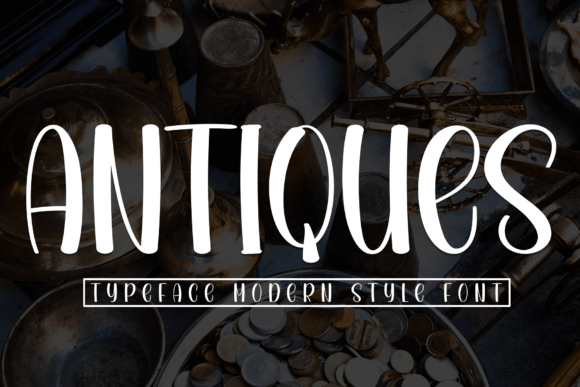
Feast your eyes on Antiques Script, where whimsy and playfulness intertwine to create a font that brings joy to your design endeavors. This enchanting script, crafted with meticulous care by the skilled hands of Strongkeng Old, captivates your senses with its irresistibly sweet and friendly charm. As you let the strokes of Antiques Script dance across your screen, you'll be captivated by its fresh and cute demeanor, perfect for adding a splash of delight to wedding invitations, greeting cards, and any project that begs for a touch of whimsy.
With its captivating curves and enchanting swashes, Antiques Script dances across the page like a playful melody. Inspired by the heartwarming spirit of the Christmas season, this font embodies the joy and merriment of the holiday. Let the infectious energy of Antiques Script fill your designs with warmth and cheer, spreading happiness and goodwill to all who lay eyes upon it.
But Antiques Script is not just a Christmas font; it's a versatile companion for all your creative adventures. Whether you're crafting a whimsical poster, designing a captivating logo, or personalizing a special invitation, Antiques Script effortlessly adapts to your vision, adding a unique touch of charm and personality.
So, dear design enthusiast, embark on a delightful journey with Antiques Script, where imagination knows no bounds. Let your designs blossom with joy and creativity as you harness the magic of this captivating script. Embrace the enchanting world of Antiques Script and watch as your projects come alive with a touch of whimsical delight.